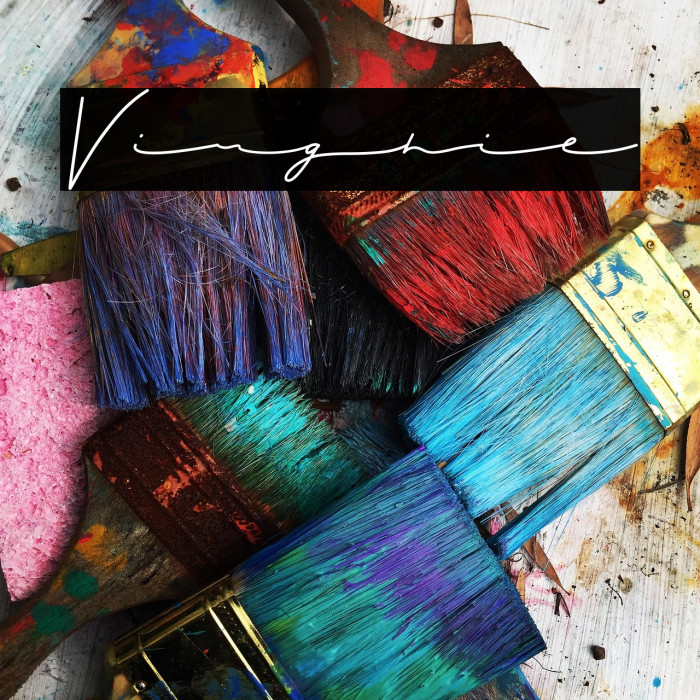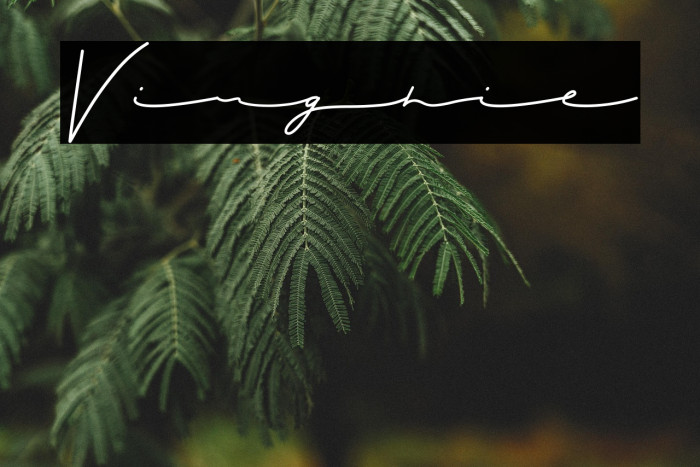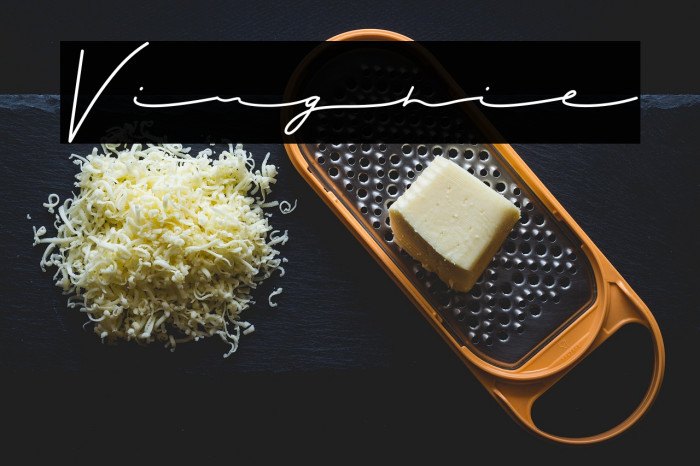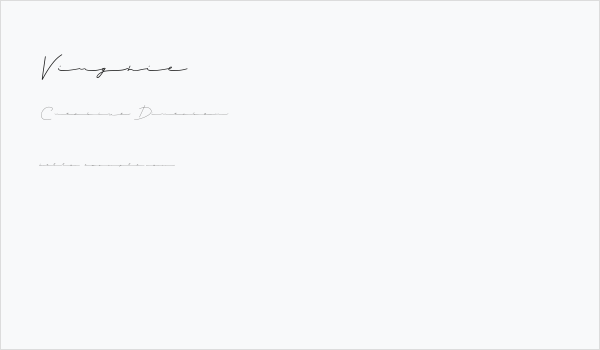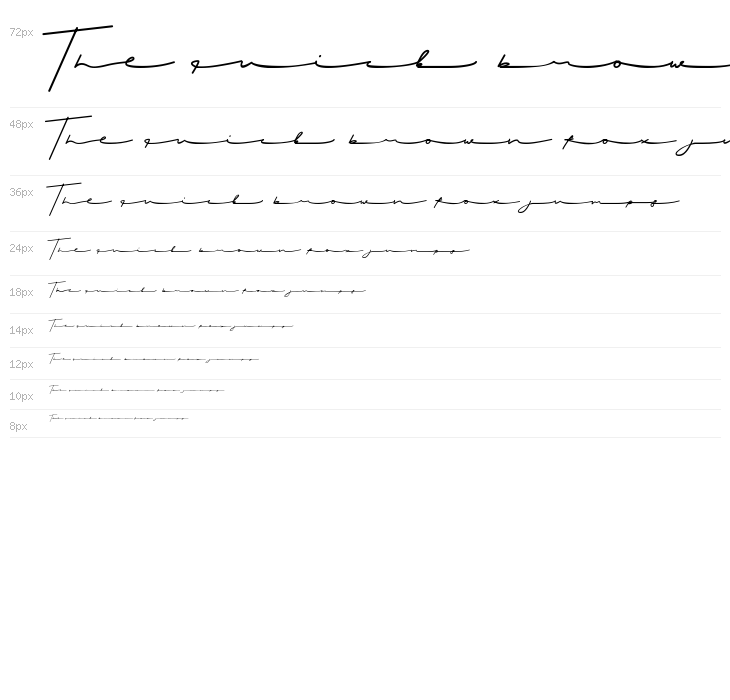
Virghie Font
Virghie Description
This elegant script font features a fluid and graceful style, reminiscent of traditional cursive handwriting. The characters are connected with smooth, flowing lines, creating a sense of continuity and movement. The uppercase letters are slightly more elaborate, with subtle flourishes that add a touch of sophistication. The lowercase letters maintain a consistent height, contributing to a harmonious appearance. The font's thin strokes and delicate curves make it ideal for projects that require a personal, handwritten touch. Its overall aesthetic is both classic and modern, making it versatile for various design applications.
Overall StyleClassic
Use CaseLogos, Invitations, Personal branding
Proposed ProjectsIdeal for wedding invitations, greeting cards, personal branding, and elegant stationery.